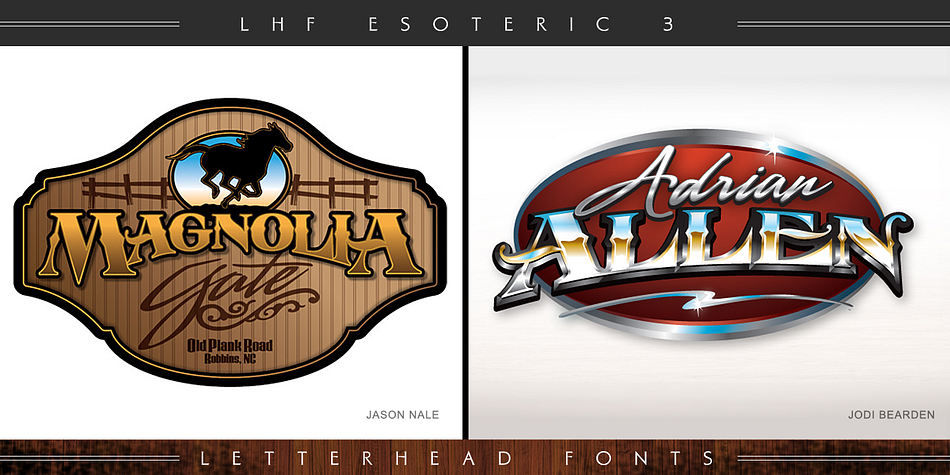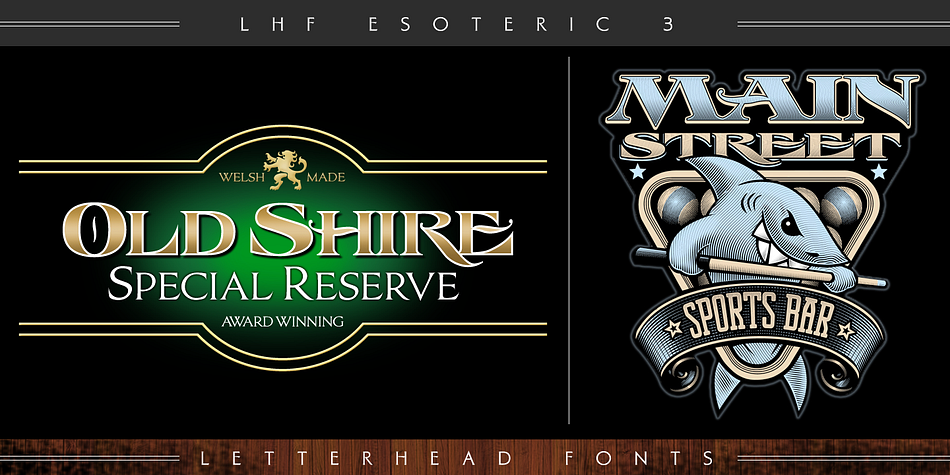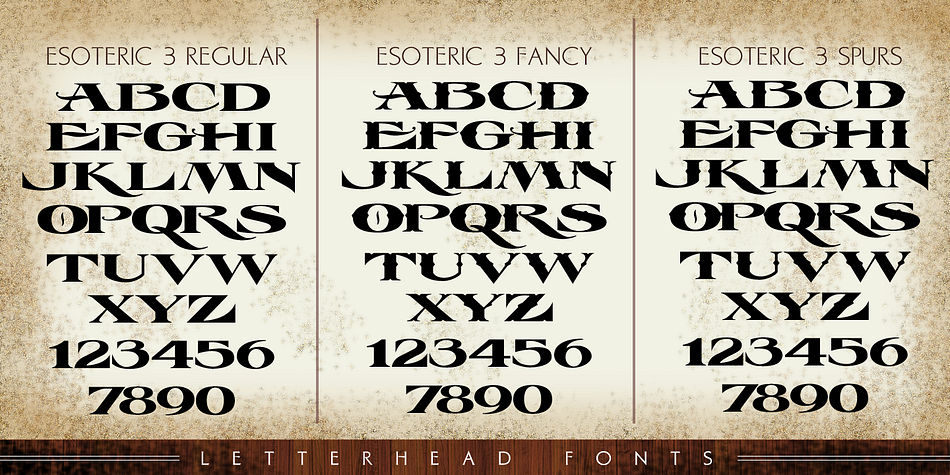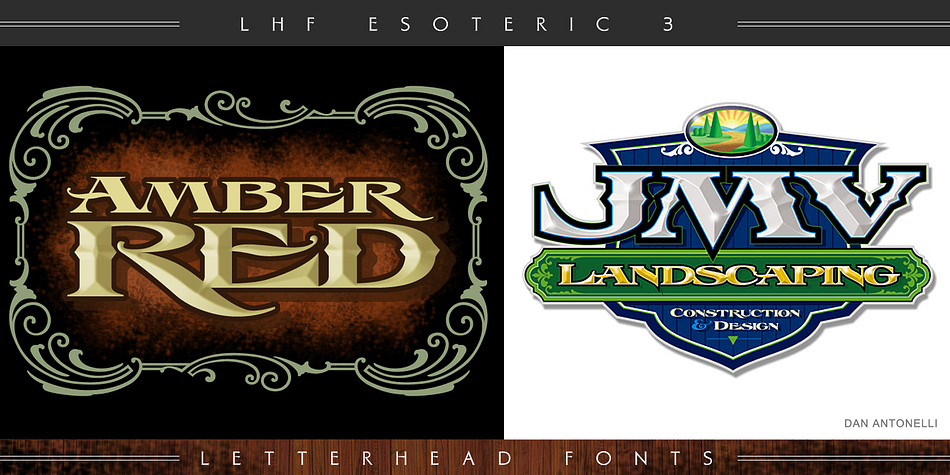
Designed by Chuck Davis, LHF Esoteric 3 is a western and display serif font family. This typeface has three styles and was published by Letterhead Fonts.
LHF Esoteric 3
This latest incarnation of Esoteric features 3 fonts: Regular, Spurs, and Fancy. Each font includes small caps, numbers, full punctuation and foreign accent characters.